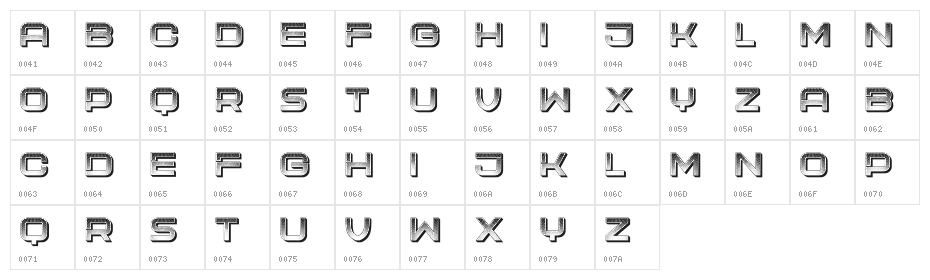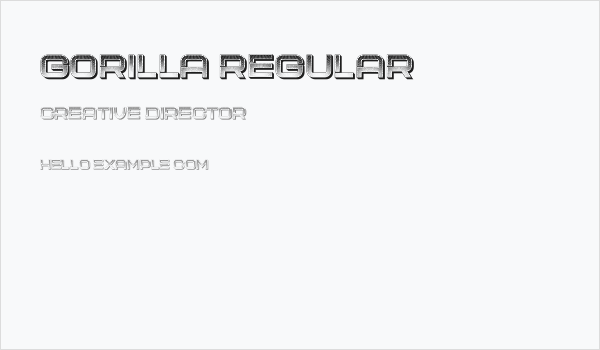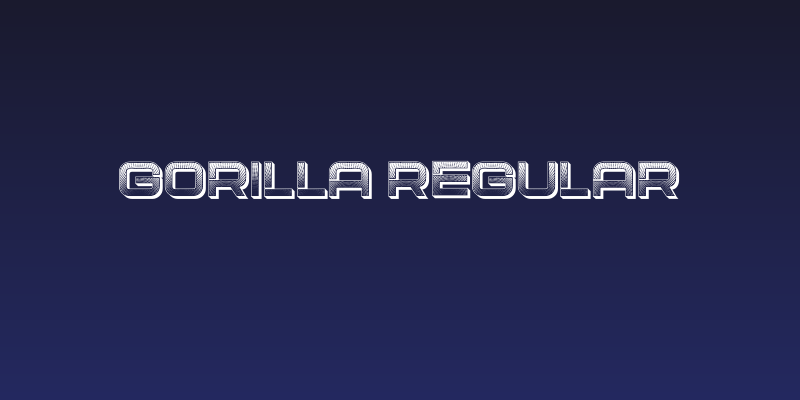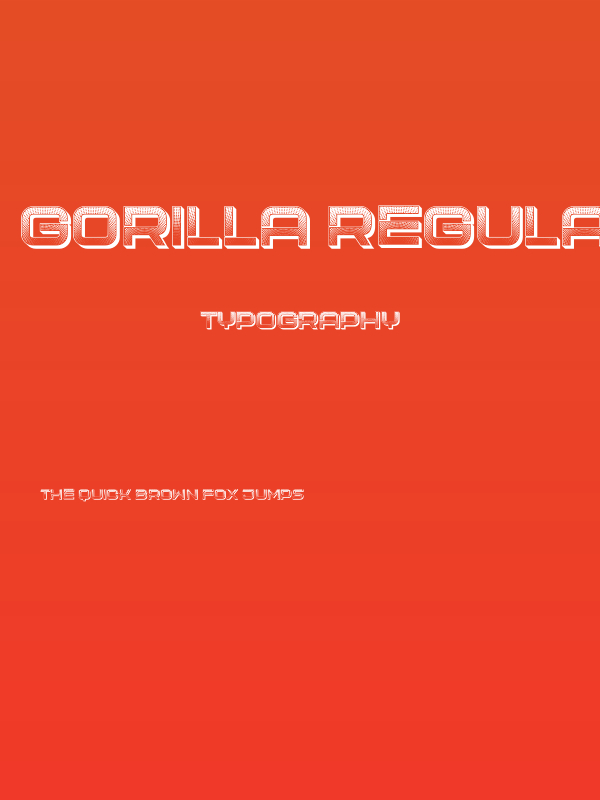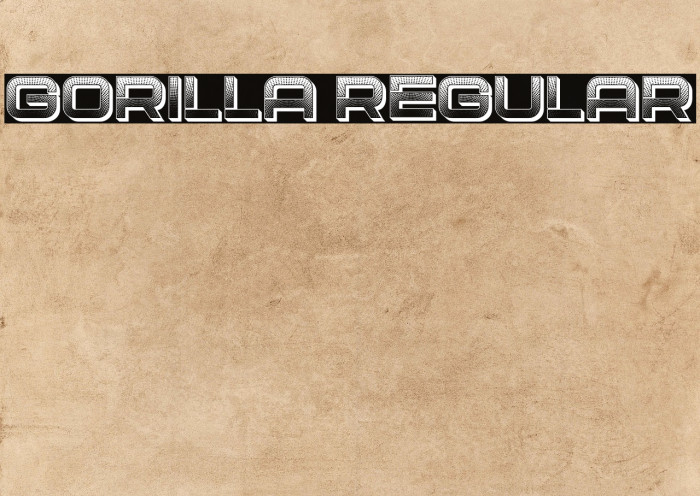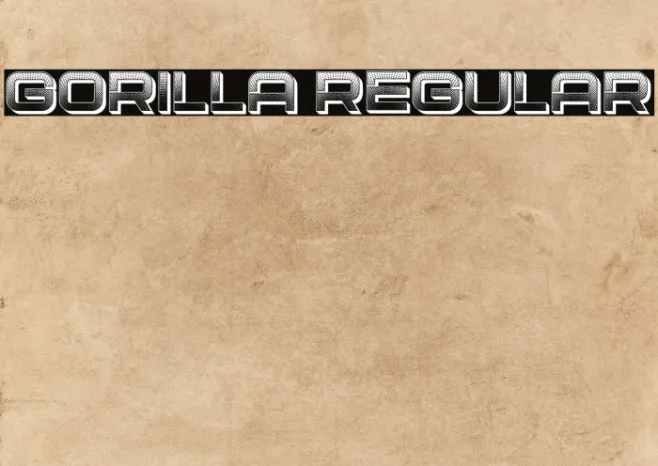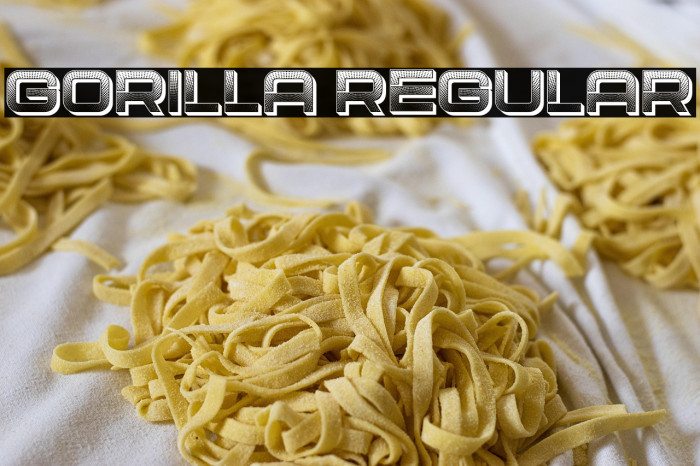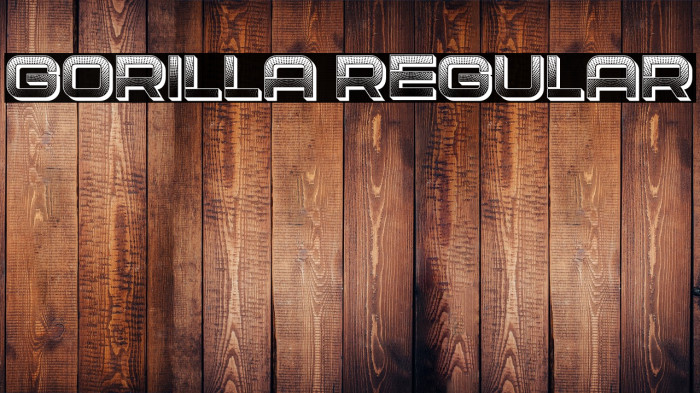
Gorilla Regular Font
Gorilla Regular Description
This font features a bold, geometric design with a distinct 3D effect created by a shadowed outline. The characters are uppercase, with a strong, industrial feel, making them stand out prominently. The interior of each letter is filled with a textured pattern, adding depth and visual interest. The font's structure is solid and blocky, with sharp angles and clean lines, conveying a sense of strength and modernity. The spacing between characters is consistent, ensuring readability while maintaining its bold appearance. This font is ideal for projects that require a striking and impactful visual presence.
| Proposed Projects | Ideal for logos, posters, headlines, and branding materials that require a strong visual impact. |